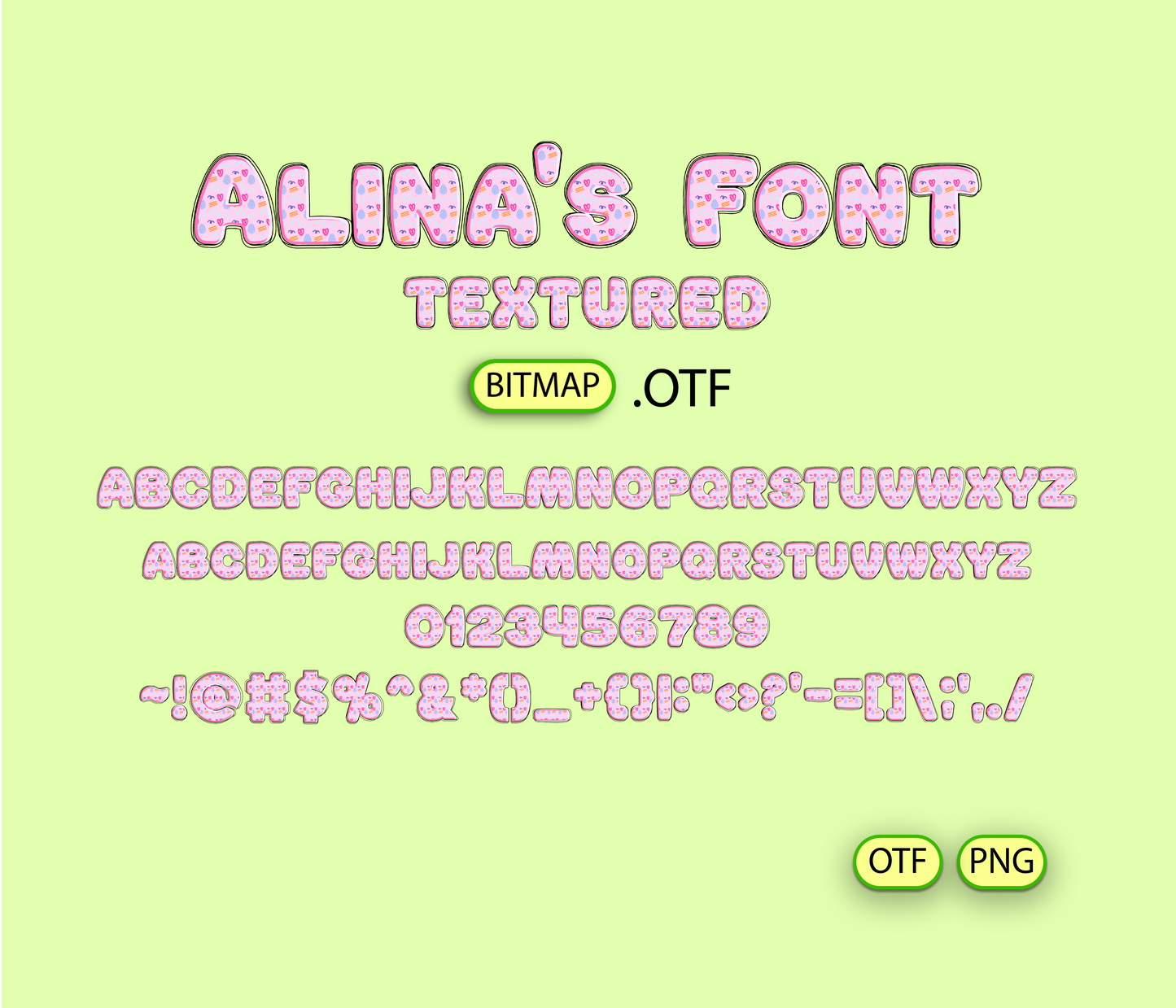
Festive Easter Typeface Colorful Pattern Font
Festive Easter Typeface Colorful Patterned Font
Introduce the joy and renewal of the spring season into your projects with our Easter font, a vibrant and heartwarming typeface inspired by the festive spirit of Easter. Perfect for those looking to capture the essence of this cherished holiday, our font blends playful design elements with the themes of rebirth, celebration, and the beauty of spring. Whether you're designing Easter Sunday invitations, creating engaging content for social media, or crafting educational materials about the holiday's traditions, the Easter font adds a touch of warmth and festivity to your creations.
Optimized for Canva, this font allows users of all design levels to easily weave the spirit of Easter into their digital designs, making it accessible to a wide audience without requiring advanced graphic design skills. The Easter font is a versatile choice for anyone wishing to convey messages of joy, renewal, and togetherness, characteristic of the Easter season, across various platforms and mediums.
Featuring a comprehensive character set and a user-friendly design, the Easter font is accessible to everyone, inviting users to celebrate the season of new beginnings in their work. Whether you're aiming to infuse your designs with the lively colors of Easter eggs and spring flowers or looking to share the holiday's message of hope, our Easter font, complete with its no-texture variant, enriches your creations with the essence of Easter and the promise of spring.
Easter Font